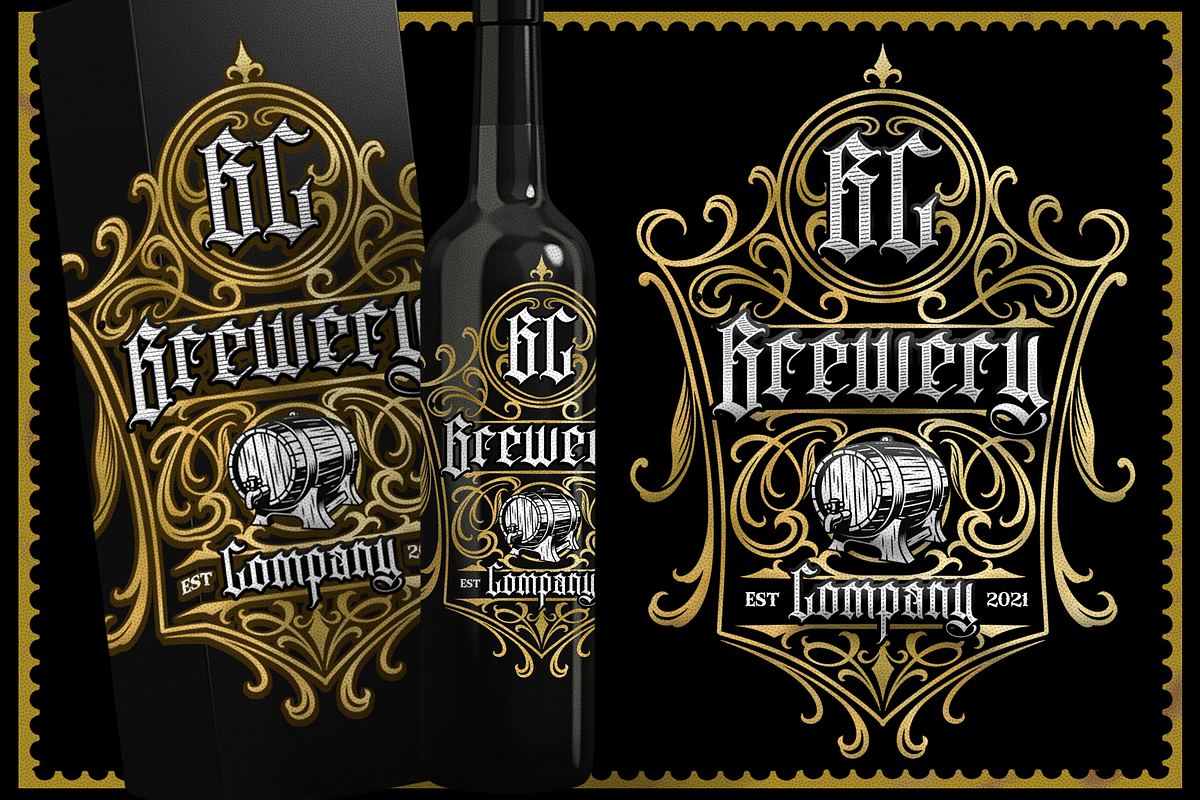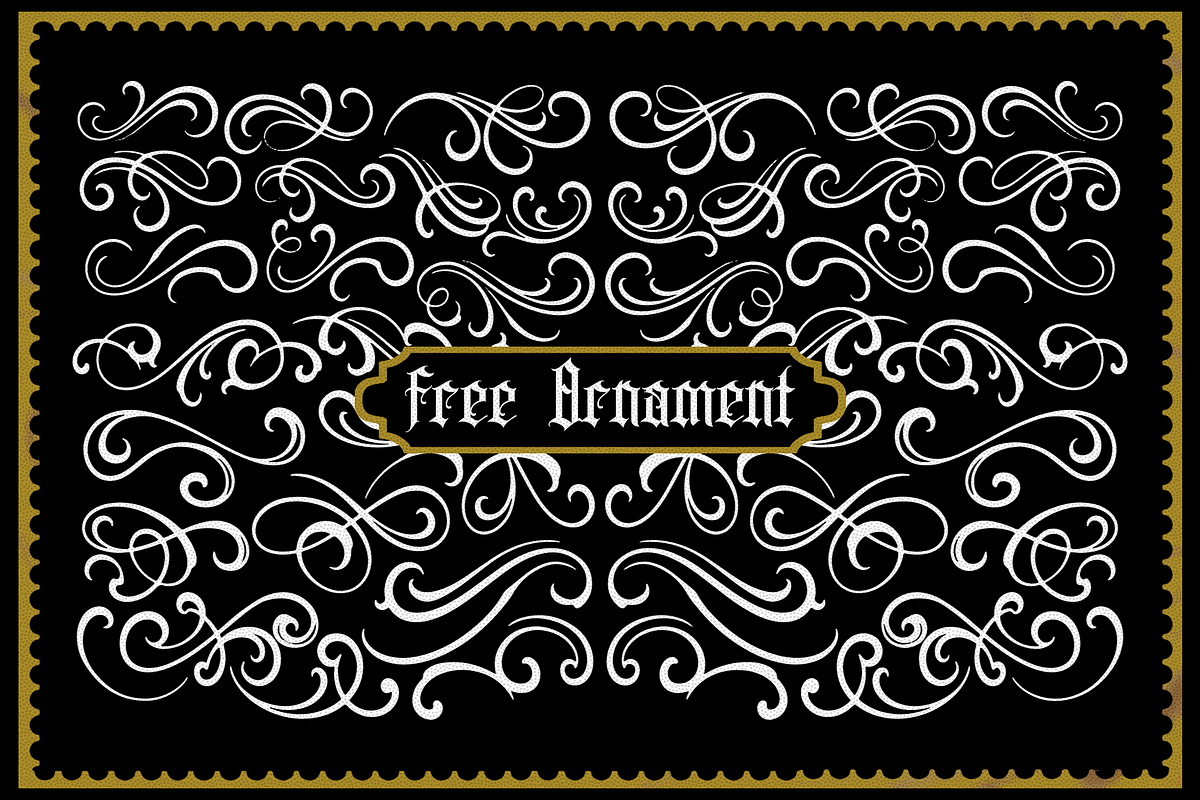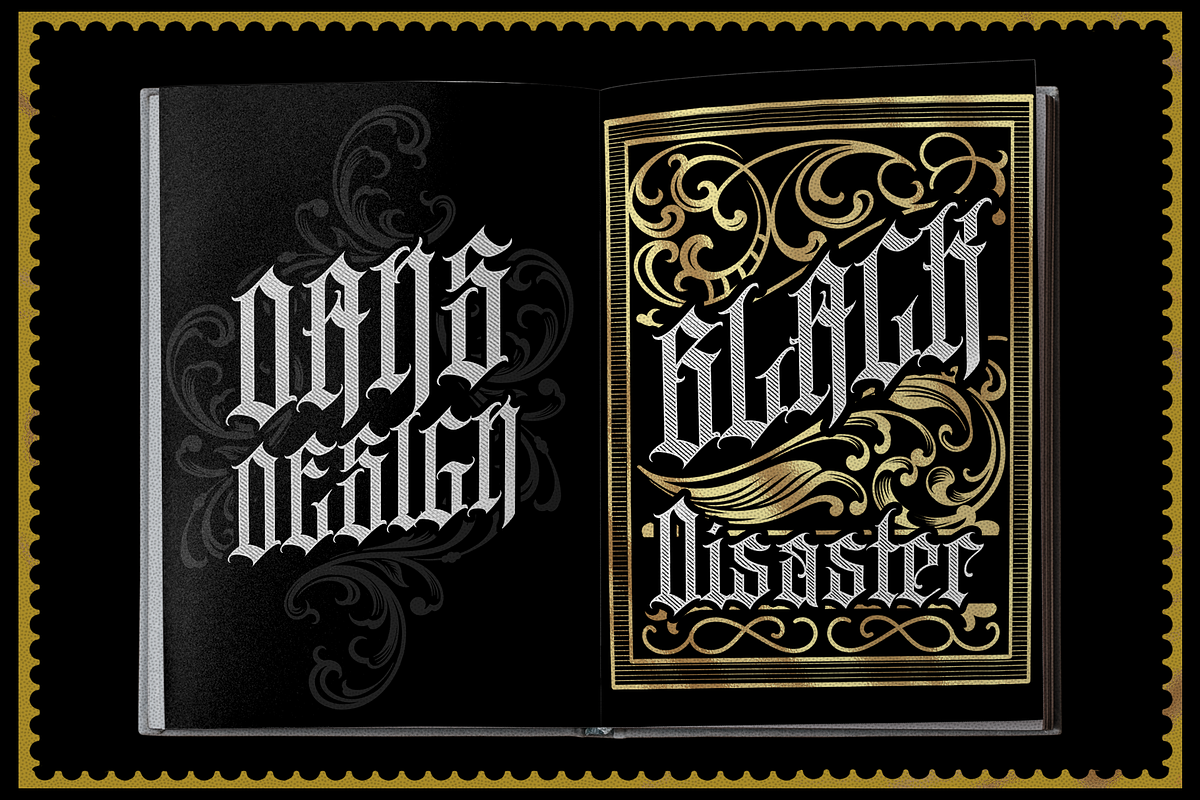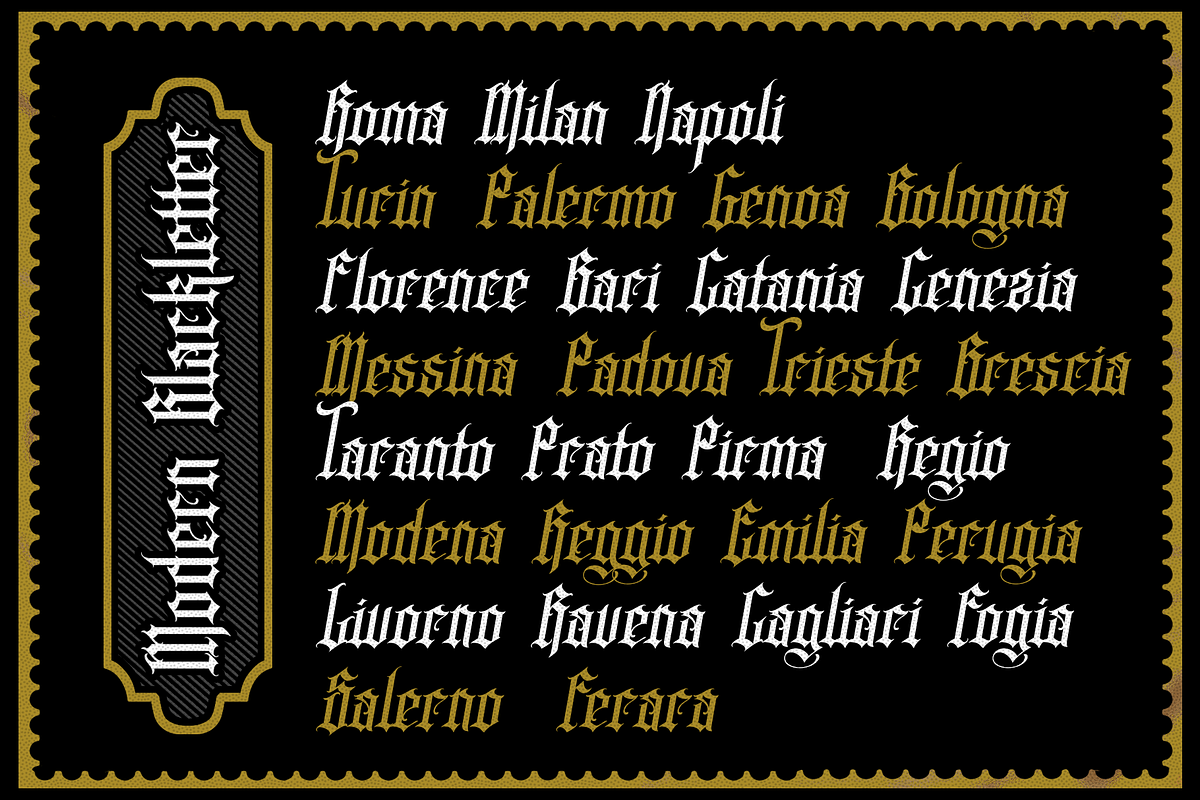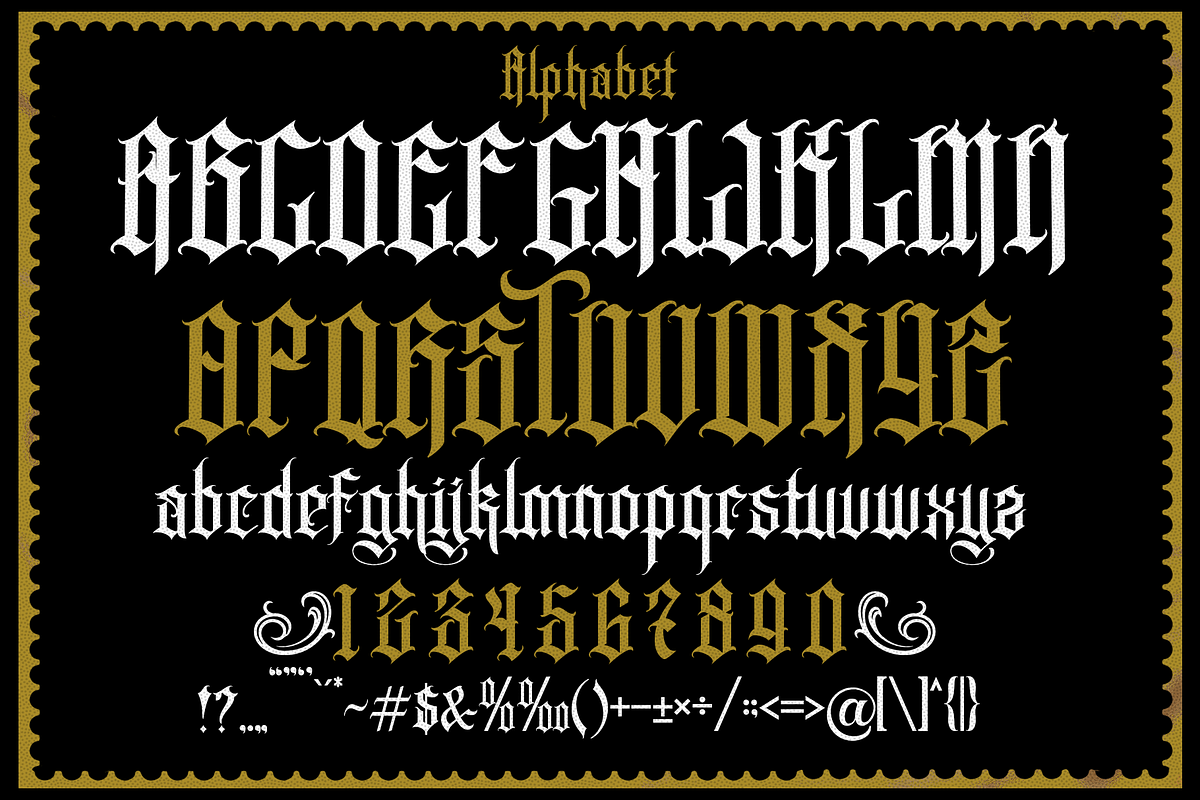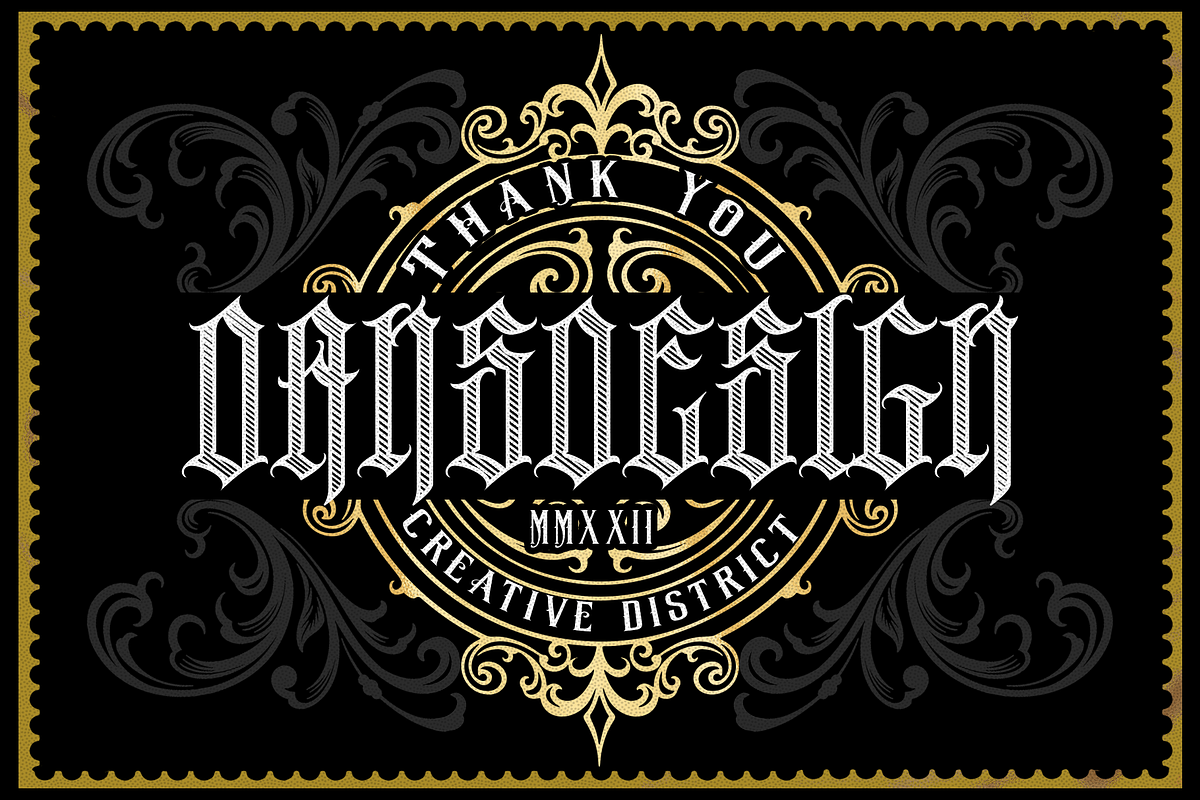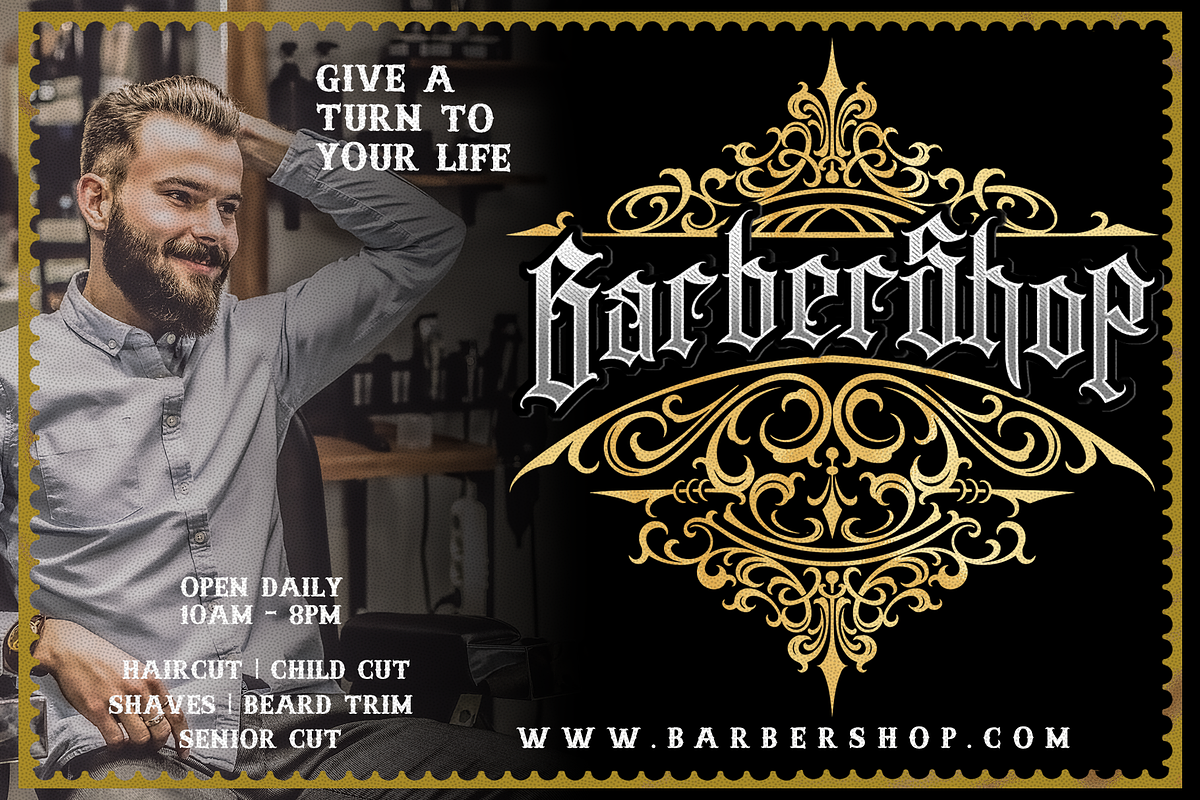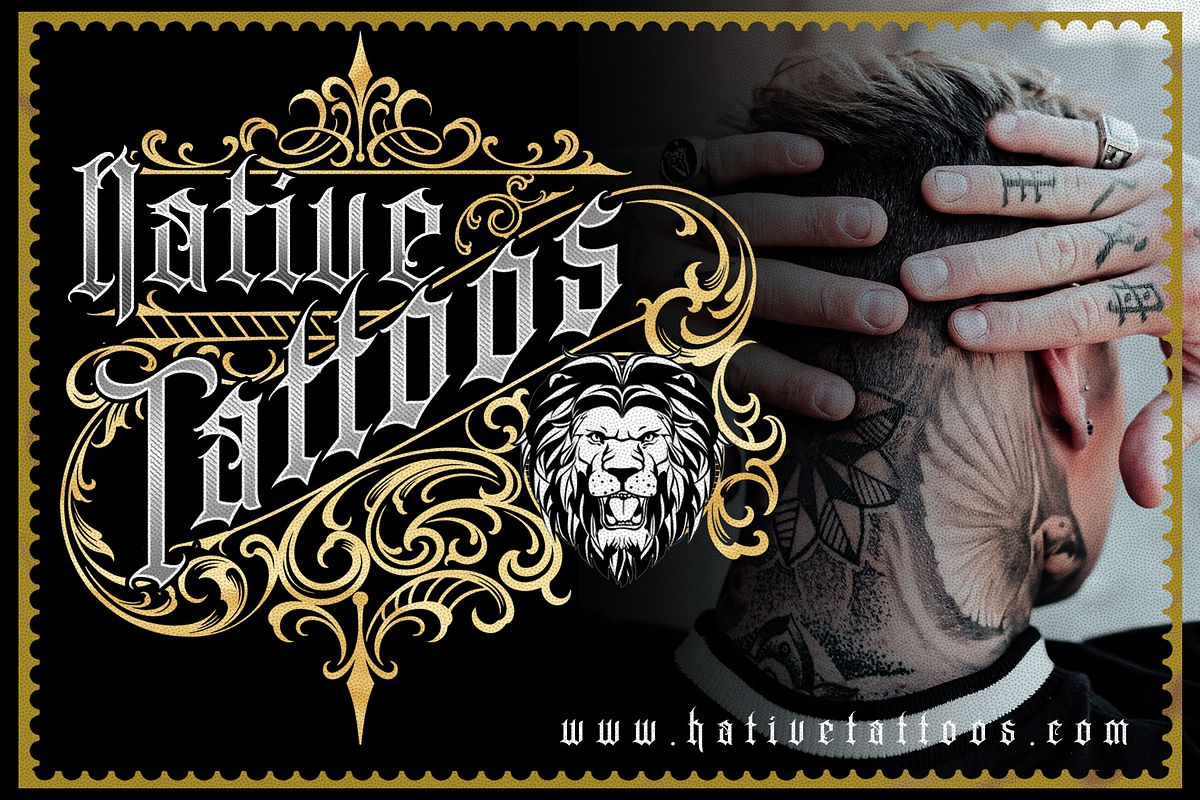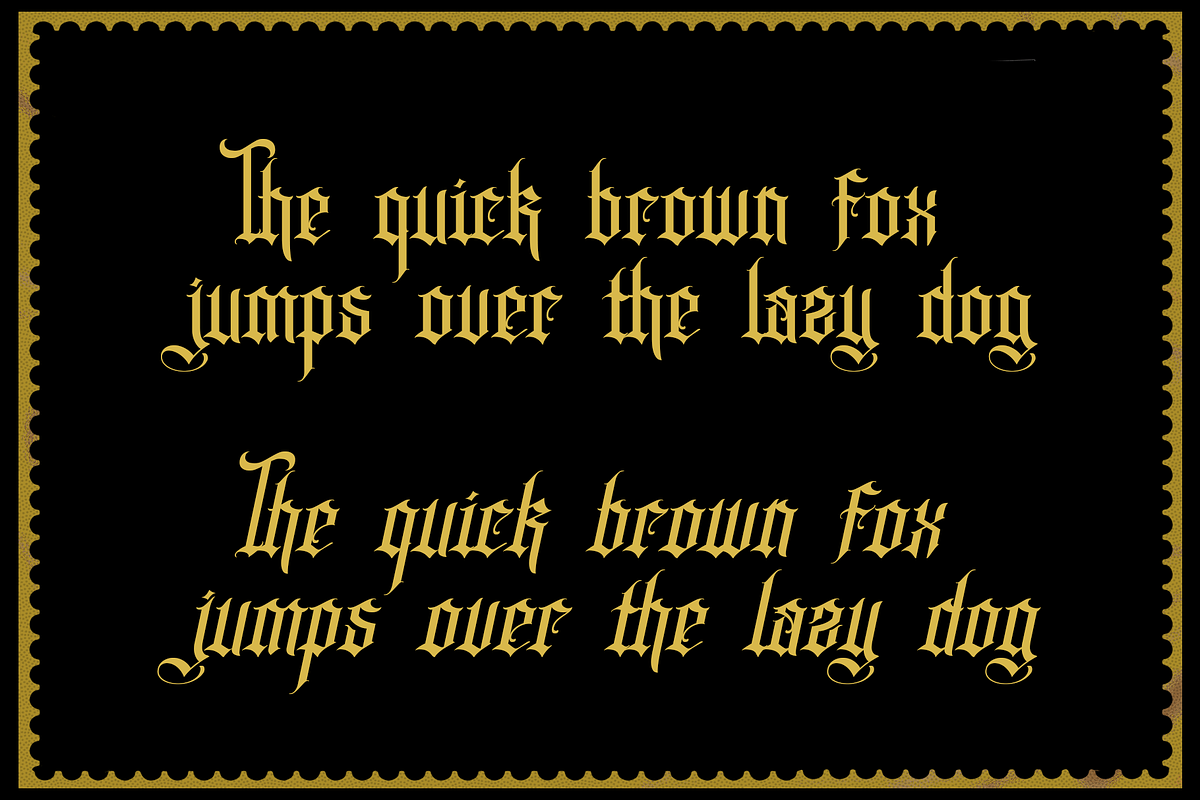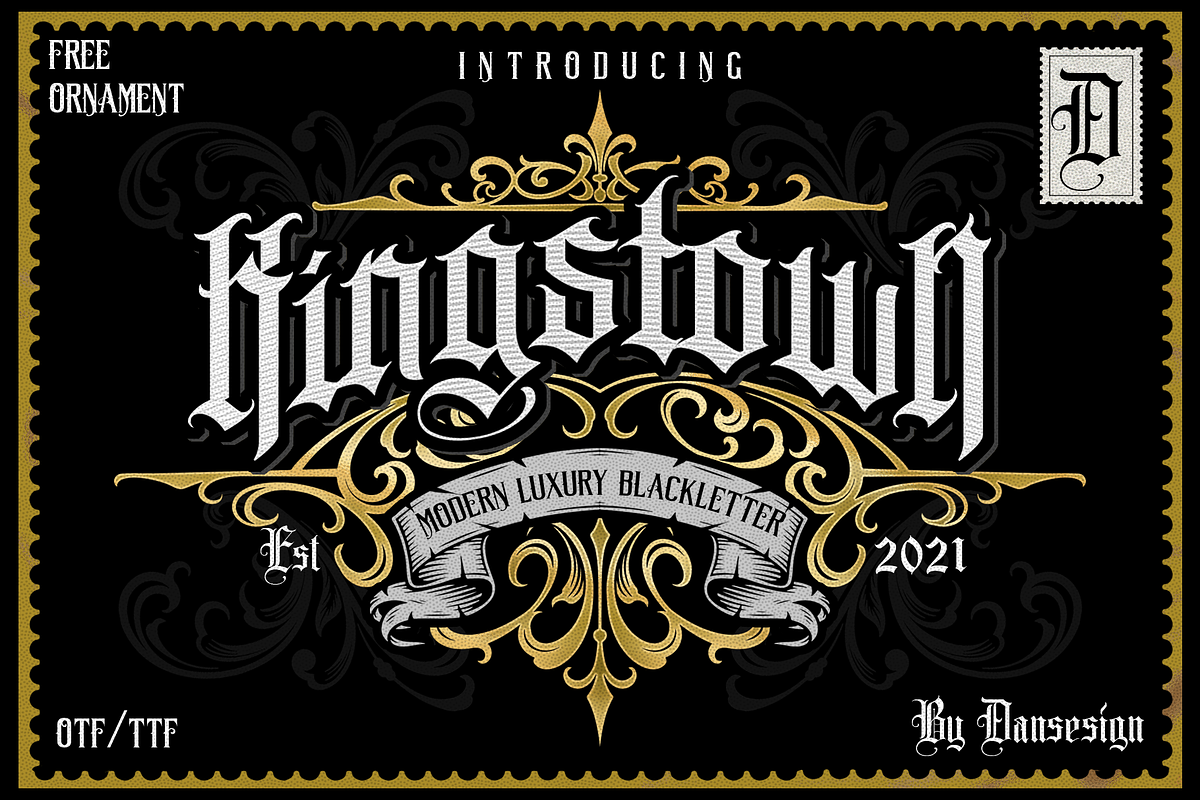
KINGSTOWN
Dansdesign Proudly present KINGSTOWN modern blackletter font, This font is made with references to various letters that I combine and design with my style.
KINGSTOWN are great and usefull for product logo, poster title, headline, packaging, badge, packaging logo , clothing brand logo, Vintage design and much more